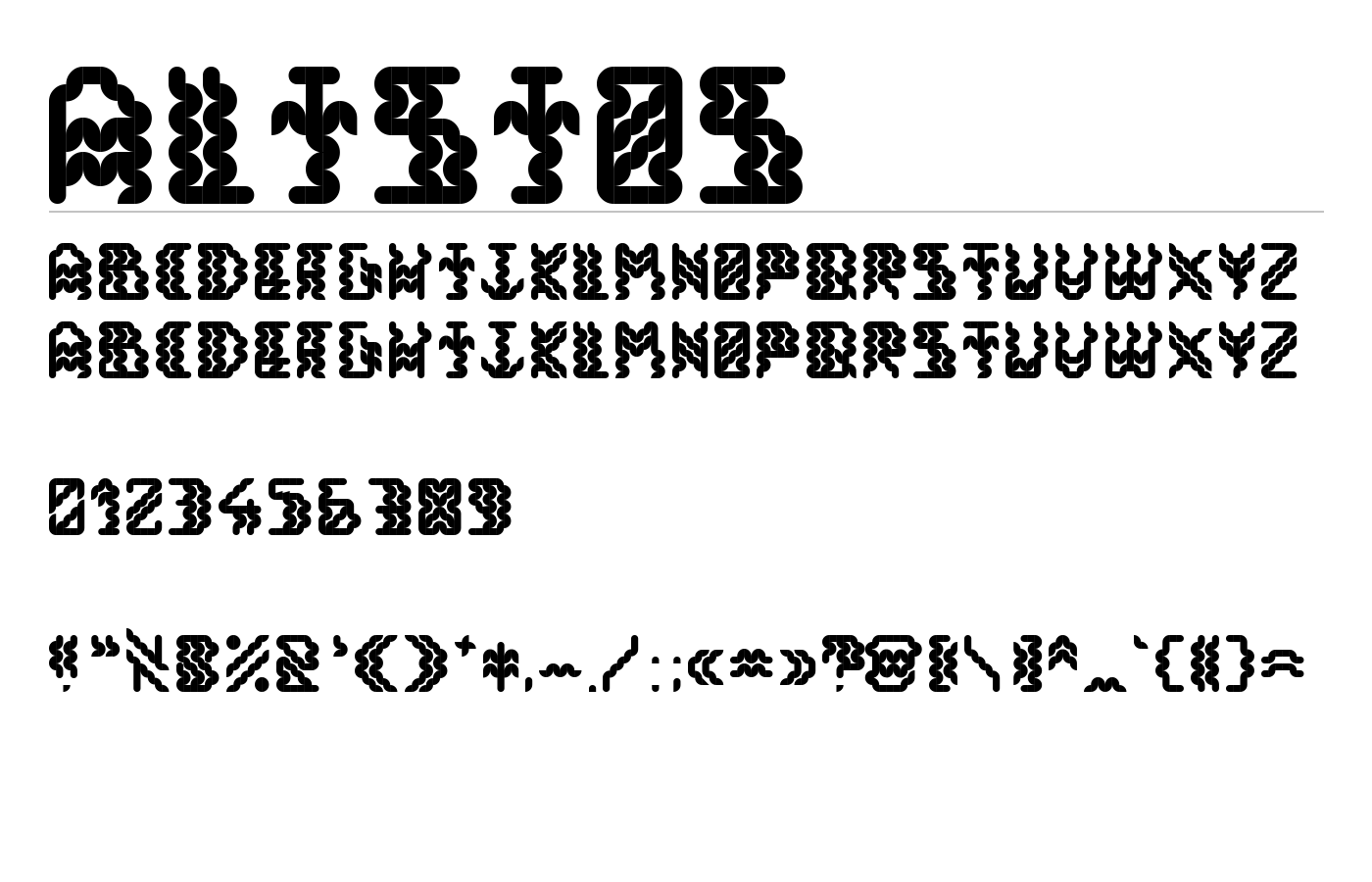
Alisios is a distinctive, playful display font characterized by its bold weight and unique, modular design resembling connected, rounded segments. With its condensed width and high contrast between thick strokes and open spaces, it creates a visually engaging pattern that stands out in headlines, logos, and creative branding projects. This font’s modern, futuristic vibe is ideal for brands seeking a quirky, tech-inspired look that grabs attention without sacrificing readability.
Alisios Font
About Alisios Font